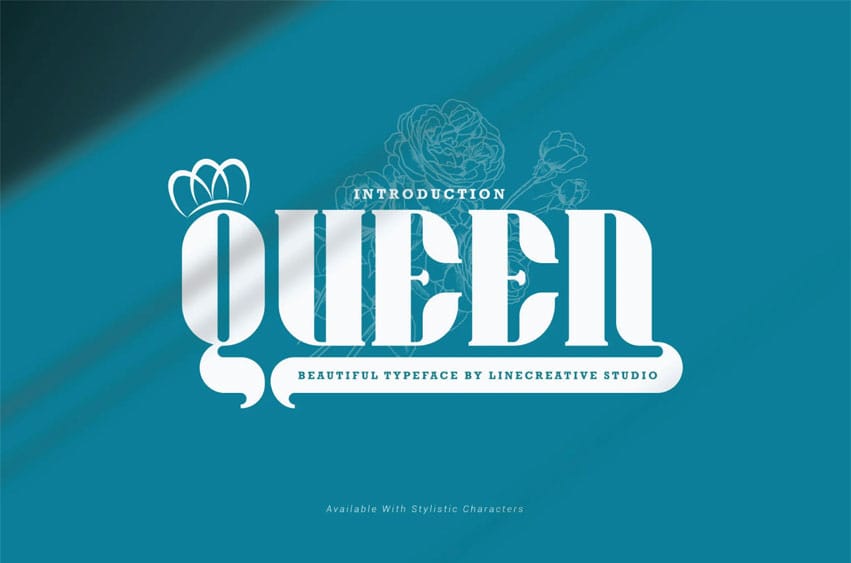
Queen Typeface Font Present and the past are supposed to always be linked to one another. It should remain mortal as history. The Queen was purposefully designed for a true art lover who enjoys the past through the modern era. Its concept can be used for the script in the modern era, but still with the vintage touch characterized by its comfort and smoothness.
For you, a lover of both the past and the present, it’s your time to put your choice on the beautiful and dynamic ‘Queen’. Enjoy the masterpiece of the Queen.